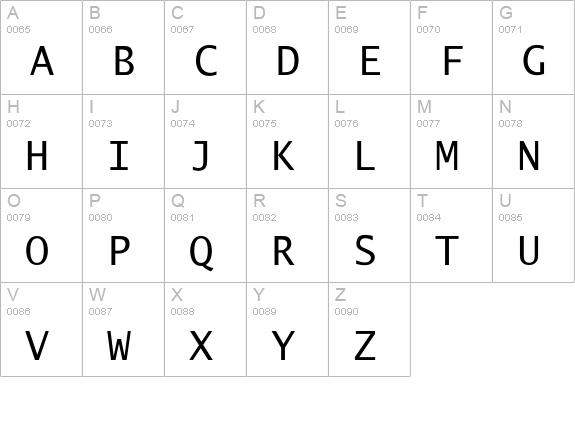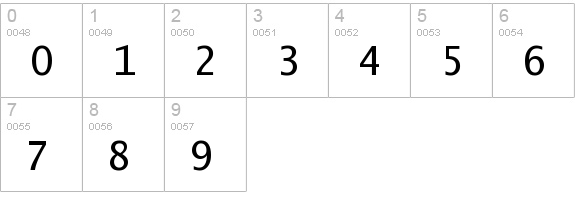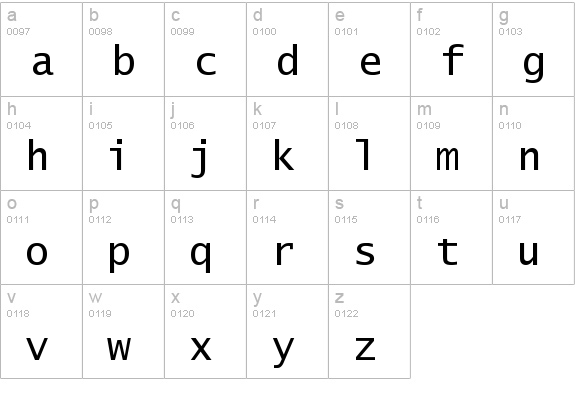
Lucida Sans Typ Font Details
Lucida Sans Typ font is a versatile and modern typeface that exudes elegance and clarity. With its clean lines and balanced proportions, this font is perfect for a wide range of design projects, from branding to editorial layouts. The sleek and sophisticated appearance of Lucida Sans Typ makes it a popular choice for both digital and print applications. What sets Lucida Sans Typ apart is its versatility and readability across different platforms and screen sizes. Whether used for body text or headlines, this font ensures optimal legibility and visual impact. The timeless and contemporary design of Lucida Sans Typ makes it a timeless choice for designers looking to create a polished and professional look. Moreover, Lucida Sans Typ is available for free download at FontsMarket.com, making it easily accessible to designers and creatives looking to enhance their projects with a high-quality typeface. By downloading Lucida Sans Typ from FontsMarket.com, you can add a touch of sophistication and style to your designs without any cost. Elevate your typography game with Lucida Sans Typ and bring your design visions to life with this stunning and versatile font.